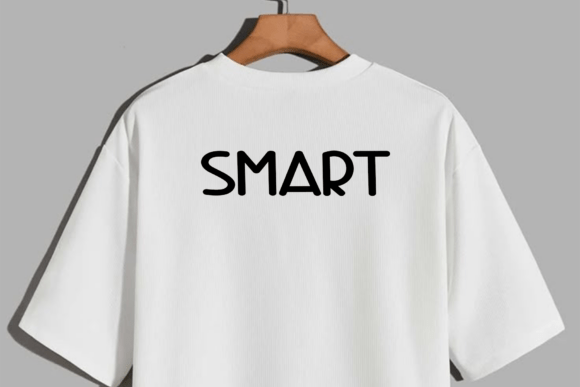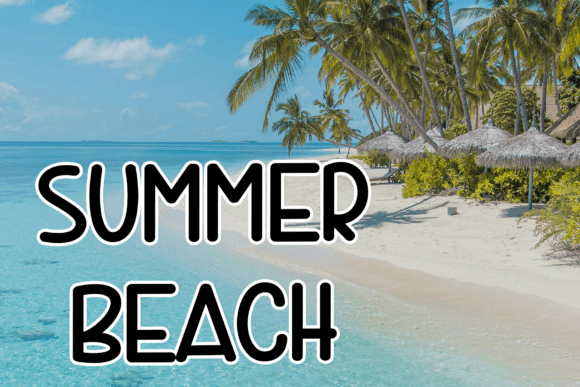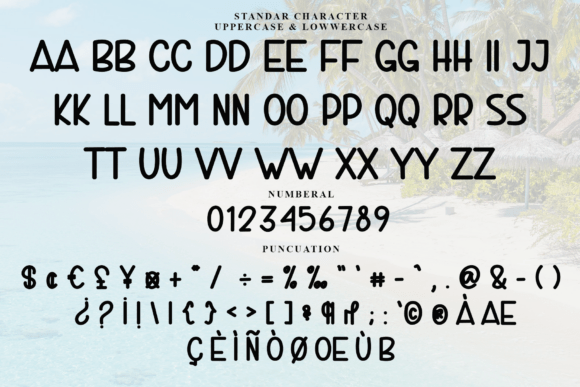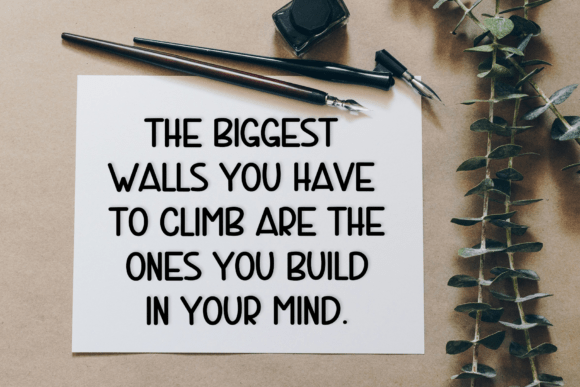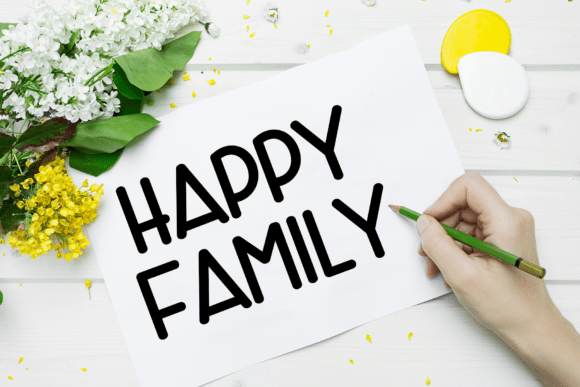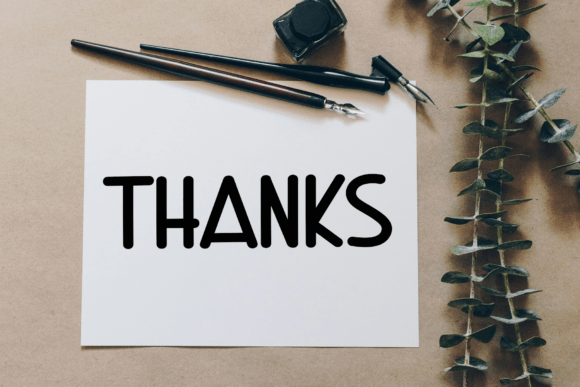
Cowgirl Font: A Delightful and Whimsical Typeface for Your Design Projects
Are you looking for a font that exudes charm, playfulness, and warmth? Look no further than the Cowgirl font! This delightful typeface is perfect for designers and crafters who want to add a touch of whimsy and friendliness to their projects. In this article, we’ll dive into the world of Cowgirl font, exploring its features, uses, and benefits.
The Charm of Cowgirl Font
Cowgirl is a font that brims with charm and whimsy, making it an excellent choice for projects that require a playful and friendly touch. Its curves are smooth and inviting, evoking a sense of camaraderie and joy. The font’s friendly demeanor makes it perfect for designs that aim to radiate warmth and cheerfulness.
Features of Cowgirl Font
Cowgirl font boasts several features that make it a standout typeface:
- Playful curves: The font’s curves are smooth and playful, giving it a whimsical feel.
- Friendly demeanor: The font’s friendly appearance makes it perfect for designs that require a warm and approachable tone.
- Whimsical feel: The font’s whimsy is perfect for projects that require a touch of playfulness and fun.
Uses of Cowgirl Font
Cowgirl font is versatile and can be used in a variety of design projects, including:
- Children’s books: The font’s playful and friendly nature makes it perfect for children’s books, educational materials, and kids’ websites.
- Party invitations: The font’s whimsical feel makes it ideal for party invitations, birthday cards, and other celebratory designs.
- Design projects: The font is suitable for any design project that requires a warm and cheerful tone, such as branding, packaging, and advertising.
Benefits of Using Cowgirl Font
Using Cowgirl font in your design projects offers several benefits:
- Unique and eye-catching: The font’s playful curves and whimsical feel make it a standout typeface that grabs attention.
- Emotional connection: The font’s friendly demeanor helps create an emotional connection with your audience, making your design more relatable and engaging.
- Versatility: The font’s versatility makes it suitable for a wide range of design projects, from children’s books to party invitations.
Tips for Using Cowgirl Font
To get the most out of Cowgirl font, follow these tips:
- Pair with complementary fonts: Pair Cowgirl font with complementary fonts to create a harmonious and visually appealing design.
- Use in headlines and titles: Use Cowgirl font in headlines and titles to add a touch of whimsy and playfulness to your design.
- Experiment with colors: Experiment with different colors to find the perfect combination that complements the font’s friendly and playful nature.
Cowgirl font is a delightful typeface that brings charm, whimsy, and warmth to any design project. Its playful curves, friendly demeanor, and whimsical feel make it perfect for children’s books, party invitations, and any design project that seeks to radiate warmth and cheerfulness. With its versatility, unique features, and emotional connection, Cowgirl font is an excellent choice for designers and crafters looking to add a touch of playfulness and friendliness to their designs.